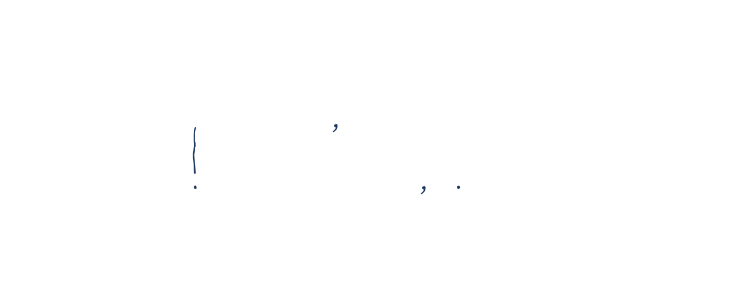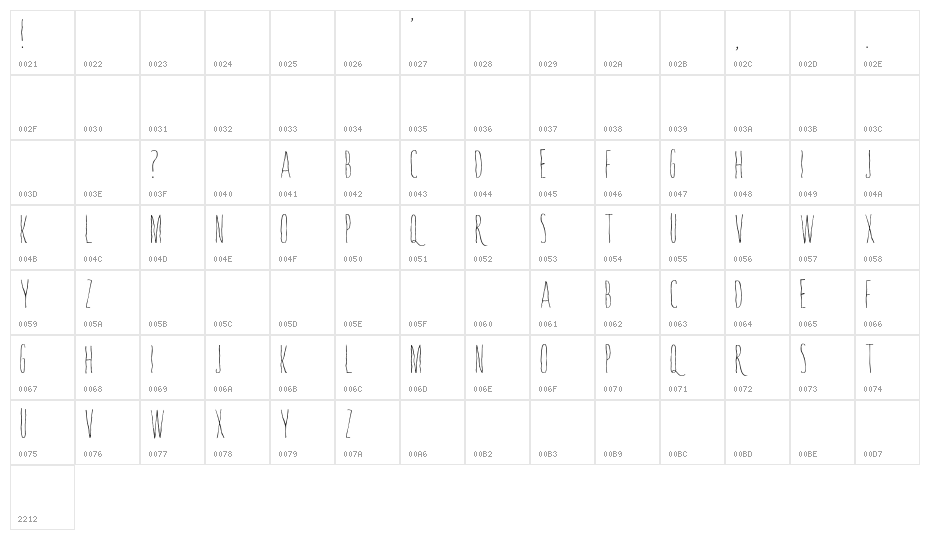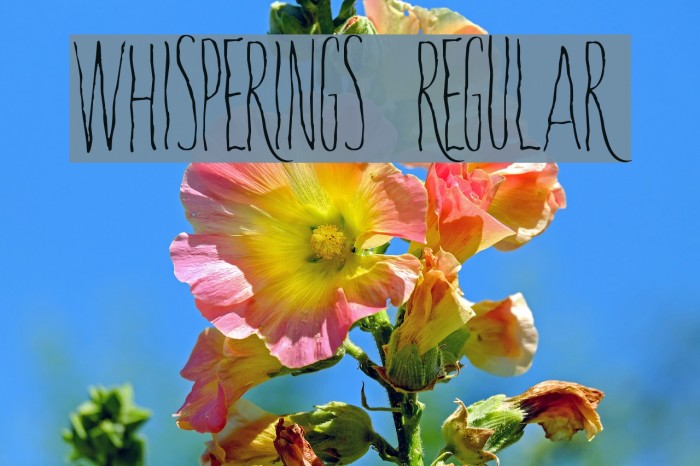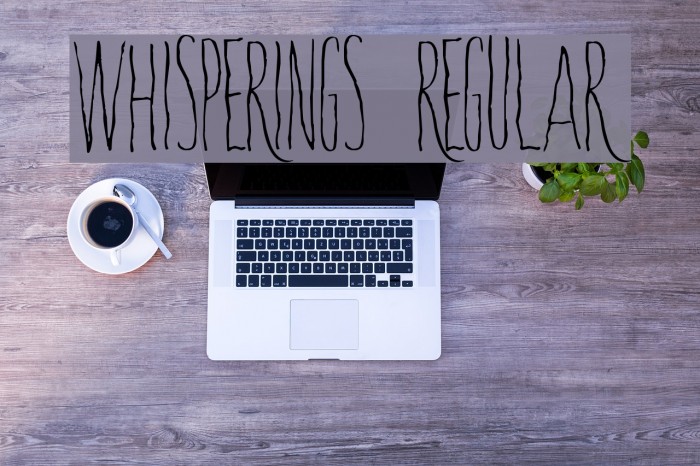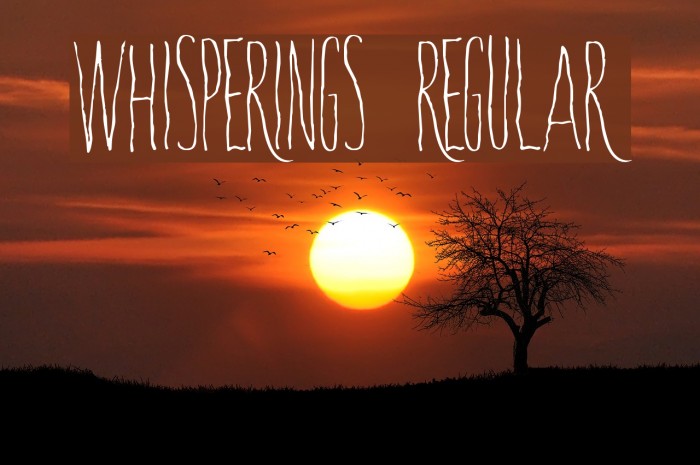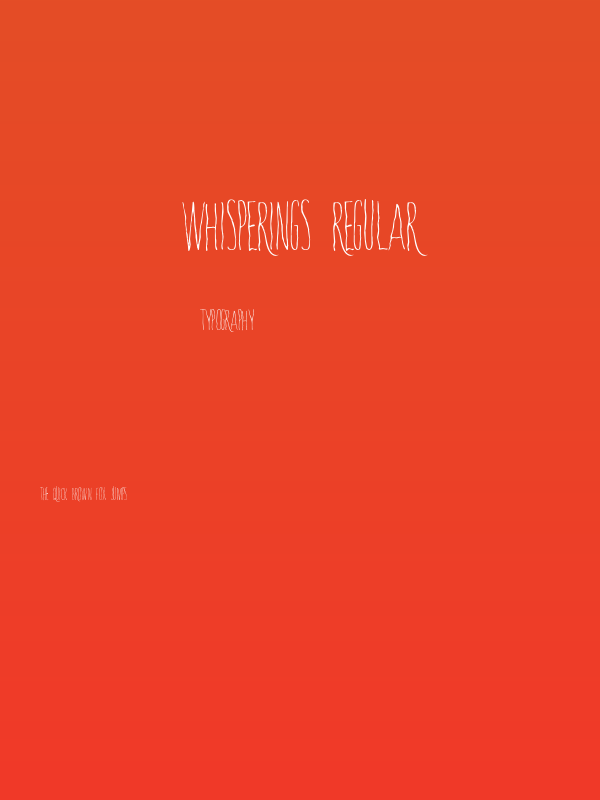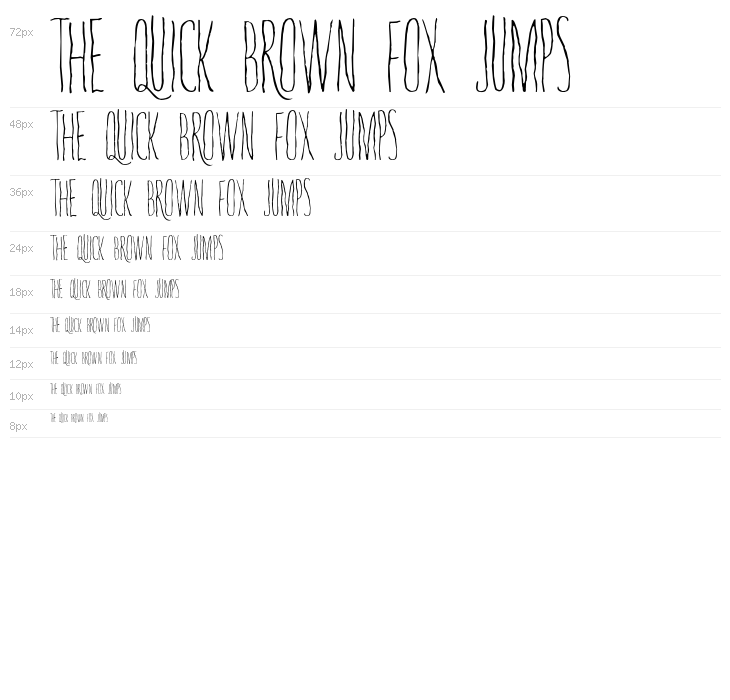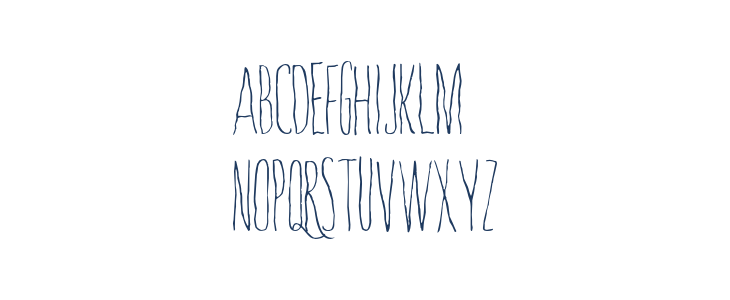
Whisperings-Regular Font
Whisperings-Regular Description
This font features a whimsical and artistic style, characterized by its tall, narrow letterforms and uneven stroke widths. The letters have a hand-drawn appearance, with slight variations and irregularities that add to its charm. The uppercase and lowercase letters maintain a consistent height, creating a cohesive look. The font's unique style is reminiscent of handwritten notes or sketches, making it suitable for creative and informal projects. Its distinct personality can add a touch of playfulness and individuality to any design.
| Proposed Projects | Ideal for creative projects such as invitations, greeting cards, posters, and artistic branding. |